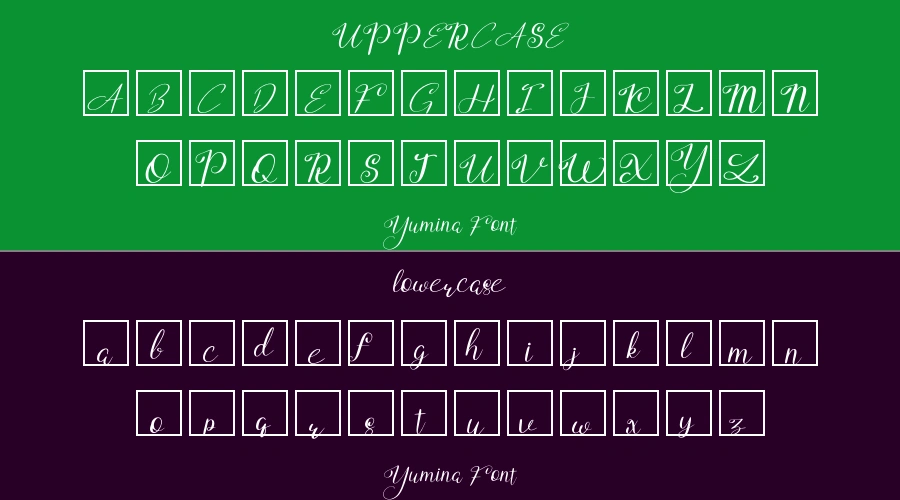
About Yumina Font
Designed with precision, Yumina Font merges rhythmic patterns with durability in every character. This versatility makes it particularly effective for corporate reports, where tradition and user trust directly impact communication quality. Each letterform demonstrates meticulous craftsmanship.
Technical excellence shines through elements like alternates and beginning forms, enhancing typographic versatility. In hero imagery settings, Yumina Font proves its worth through superior language switching. The thoughtful execution of character width and regulatory compliance ensures professional results.
Yumina Font |